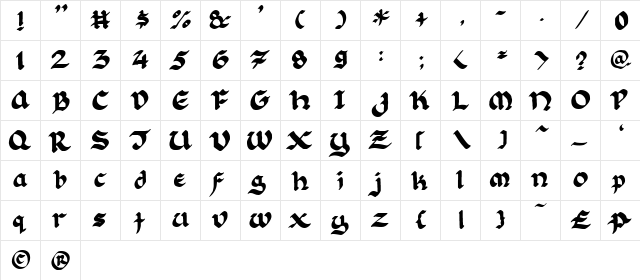
Florante at Laura Regular
Design Context for Florante at Laura Typeface
Florante at Laura is a composed and adaptable typeface that performs quietly and consistently across a wide range of design contexts.